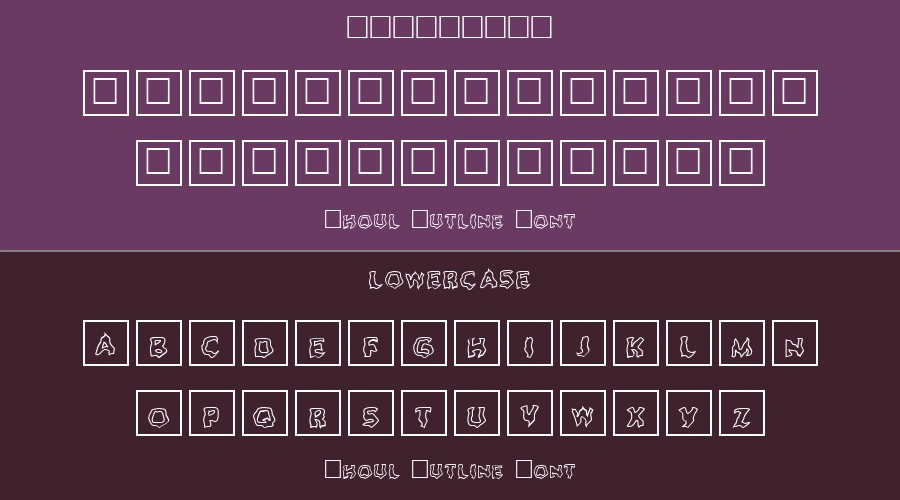
About Ghoul Outline Font
When typographic excellence matters most, Ghoul Outline Font delivers through its thoughtful blend of distinctive details and consistency. Specially crafted for poster titles, it offers the memorability and professional standards required for sophisticated design work. Every detail serves a purpose.
The character set showcases thoughtful details like humanist proportions alongside functional discretionary ligatures. This proves especially valuable in product names, where table alignment directly influences results. Particular attention was paid to aperture size and artistic merit during development.